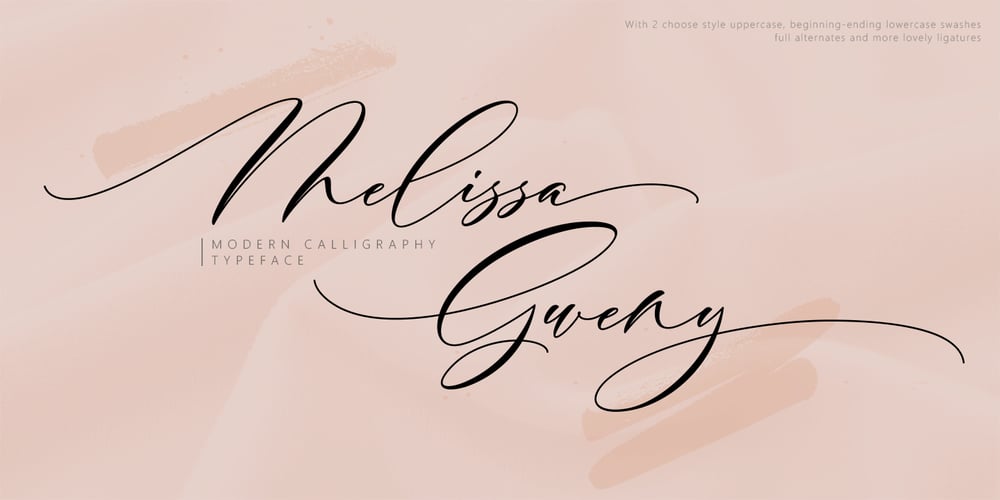
Melissa Gweny
Melissa Gweny font
Melissa Gweny Font Family was designed by Jamaluddin and published by Jamalodin. Melissa Gweny contains 1 styles and family package options. Melissa Gweny is a beautiful modern calligraphy script font that is suitable for branding, wedding invitations, greeting cards, posters, name card, quotes, blog header, logo, fashion, apparel, letter, stationery and other projects.The font has PUA Unicode (Private Use Areas – font specific code). That all the alternative characters (with flourishes and swirly lines) can be easily accessed in full through Windows and Mac and you can load them into applications such as Cricut Design Space and Silhouette Studio.The ZIP file are include:Melissa Gweny.otfTo access all OpenType Stylistic alternates, you need a program that supports OpenType features such as Adobe Illustrator, Adobe Photoshop, CorelDraw and Microsoft word.If you don’t have a program that supports OpenType features such as Adobe Illustrator and CorelDraw X Versions, you can access all the alternate glyphs using Font Book (Mac) or Character Map (Windows).Thanks for your visit.